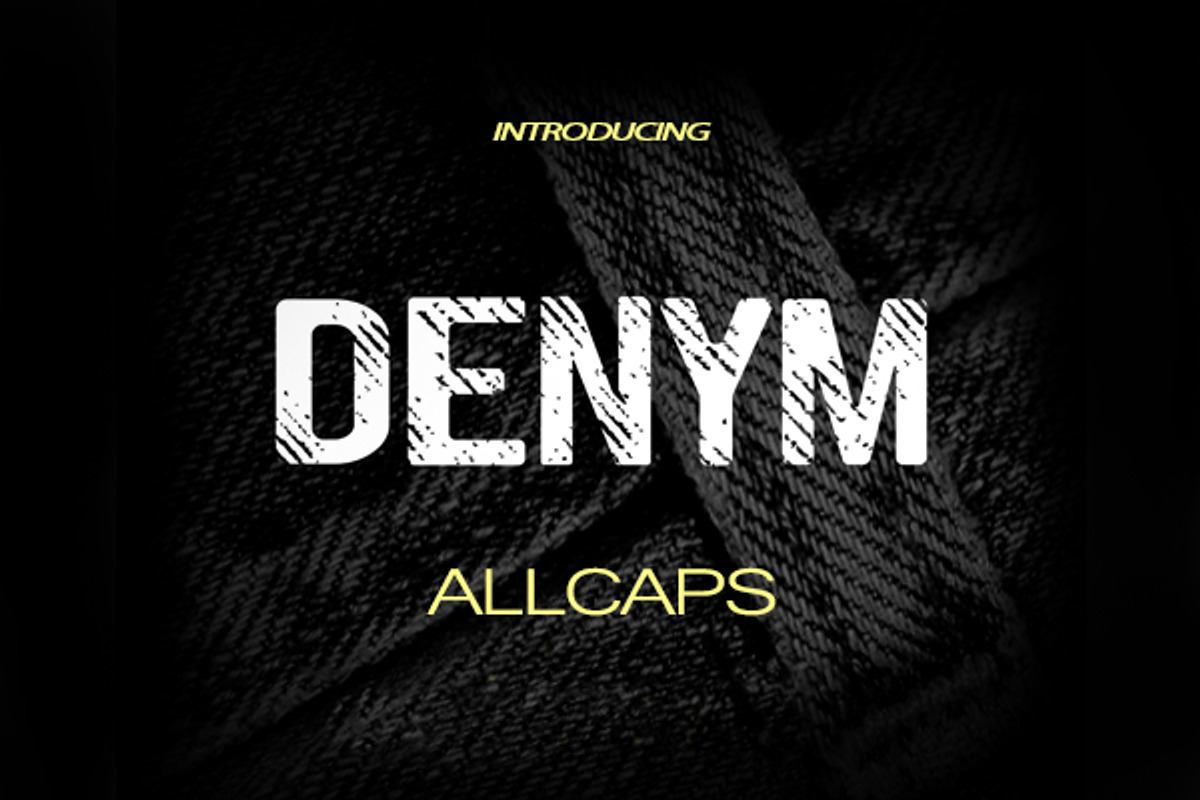
DENYM Font Free Download is a bold and modern typeface with a rugged, street-smart attitude—perfectly inspired by the timeless edge of denim fashion. Whether you're designing for apparel brands, lifestyle products, magazine layouts, or edgy marketing campaigns, DENYM delivers strong, clean lines with a confident presence.
Its contemporary sans-serif style makes it highly versatile for both display and headline use. With a subtle industrial feel, it’s ideal for urban branding, lookbooks, and social media graphics that demand attention.
Designers appreciate DENYM for its simplicity, style, and powerful impact. If you're aiming for a look that’s sleek, stylish, and effortlessly cool—download DENYM Font Free Download and bring modern grit to your next design project.